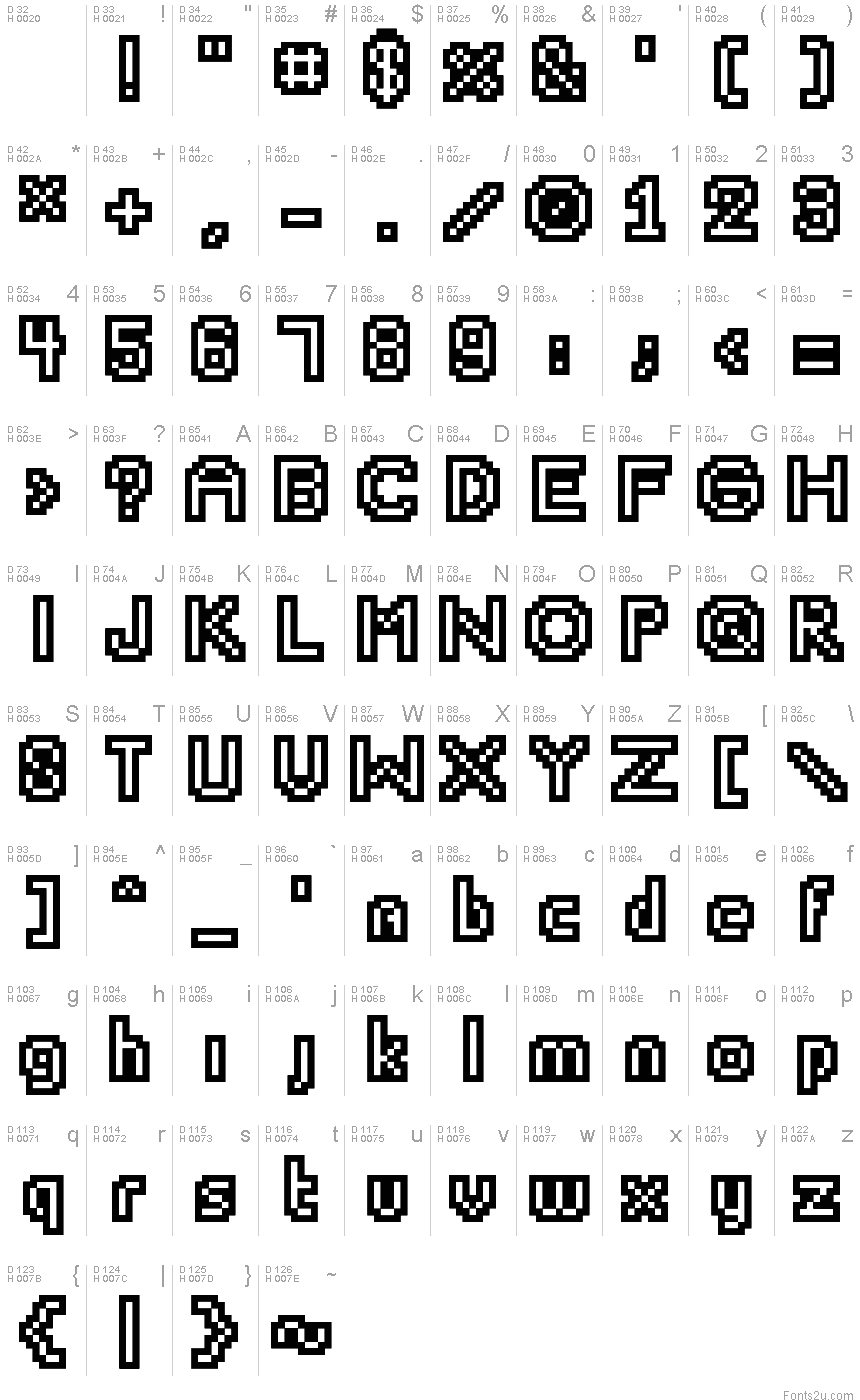
LipbyChonkOutline
A font specifically made for use in Adventure Game Studios. Best viewed at 9 pixel size. Outline and Alias fonts are to be layered over the base font.